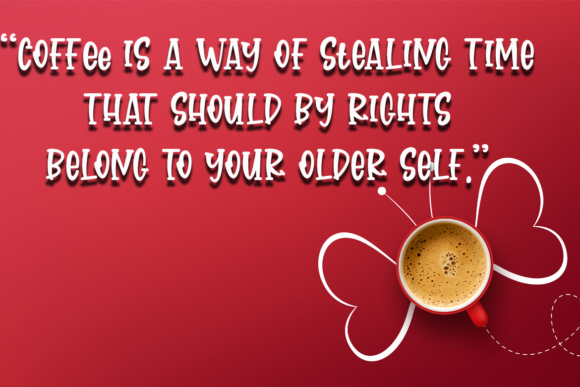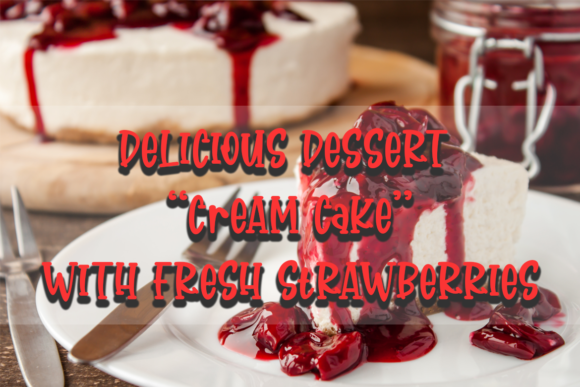
Strawberry Cheesecake Font
db-ku.com - Script & Handwritten -- Strawberry Cheesecake is a cute and quirky handwritten font. Fall in love with its incredibly versatile style and use it to create spectacular designs!